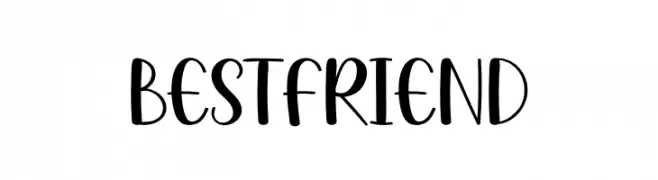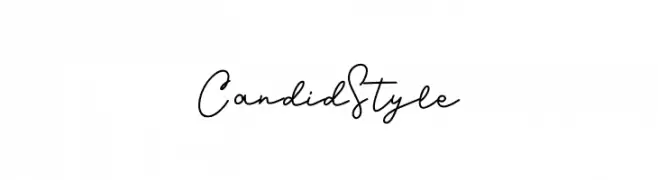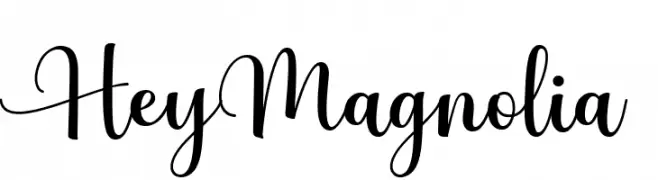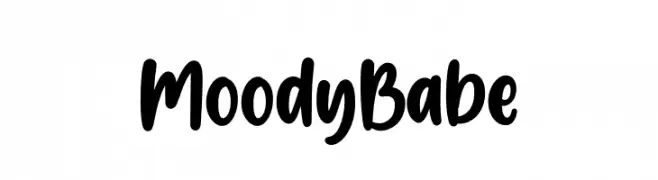
A playful handwritten font with smooth, flowing curves and a casual style.
A playful handwritten font with smooth, flowing lines and a casual style.
A playful, rounded font with smooth curves and a friendly appearance.
A charming, elegant script font with a modern, handwritten style.
A playful, elegant script font with a handwritten feel and moderate stroke contrast.
A lively, cursive handwritten font with fluid, connected strokes.
A modern, elegant handwritten script with fluid, connected letterforms.
A playful, handwritten-style font with varying stroke thickness.
A bold, playful handwritten font with thick strokes and rounded edges.
A cursive, handwritten font with a casual and flowing style.